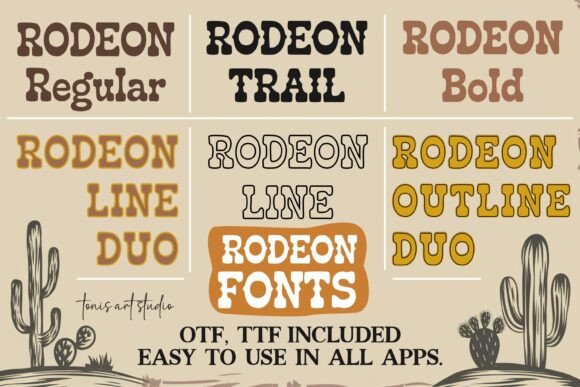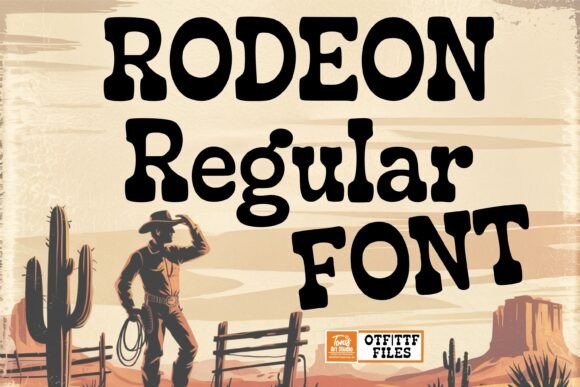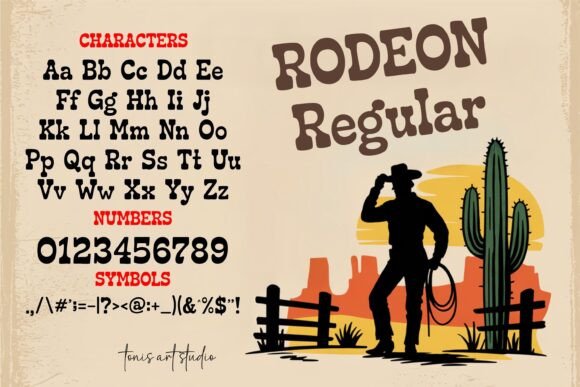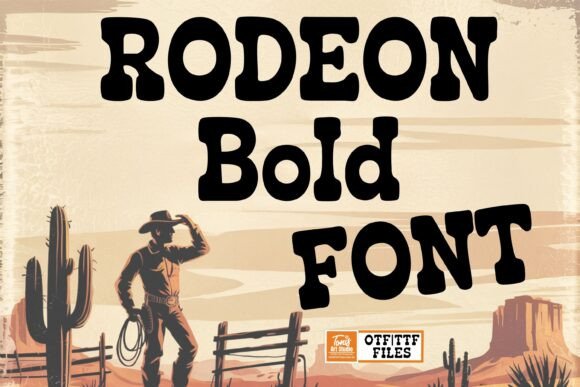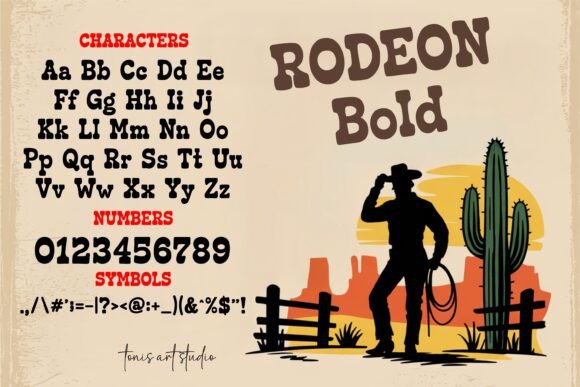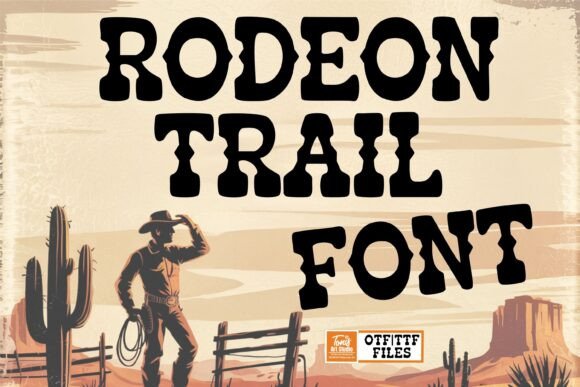
Introduction to Rodeon Western Bundle Font
As you sit at your desk, surrounded by half-finished projects and scattered design files, you feel an overwhelming urge to create something truly unique. You’ve been staring at a blank page for what feels like an eternity, searching for the perfect design resource to spark your creativity. Suddenly, the Wild West comes to mind, and you can almost hear the sound of horses galloping and gunslingers showdowns.
It’s moments like these that you wish you had the right tools to bring your ideas to life. That’s where the Rodeon Western Bundle Font comes in – a high-quality, versatile font collection that’s perfect for any creative project. With its rugged, hand-tooled style and transparent background, this font bundle is a must-have for designers looking to add a touch of frontier flair to their designs.
Key Features of Rodeon Western Bundle Font
- High-quality, western-themed font bundle perfect for creative projects
- Comes with 8 unique fonts, including serif and sans-serif styles
- Perfect for use in logos, signage, and other design elements that require a western or rustic feel
Honest Review: Rodeon Western Bundle Font
I recently had the chance to work with the Rodeon Western Bundle Font, and I must say it’s a fantastic addition to any designer’s toolkit. As a designer, I’m always on the lookout for high-quality fonts that can elevate my creative projects. The Rodeon Western Bundle Font delivers on this front, with its unique and authentic Western feel.
Here are some things that I really like about this font:
- ✨ High-quality designs that are perfect for Western-themed projects
- ✨ Includes a range of styles and weights to suit different design needs
- ⚠️ Limited customization options
Overall, I’m really impressed with the Rodeon Western Bundle Font. It’s a great design resource that can add a touch of authenticity to any creative project. While it’s not perfect, the pros far outweigh the cons in my opinion. If you’re looking for a high-quality font for your Western-themed projects, I highly recommend giving this one a try.
The Rodeon Western Bundle Font is ideal for use in creative projects that require a high-quality, western-themed font. Some common use cases include:
Designing marketing materials, such as brochures and flyers, for a western-themed business.
Creating a western-themed logo or branding identity.
Designing a website or blog with a western theme.